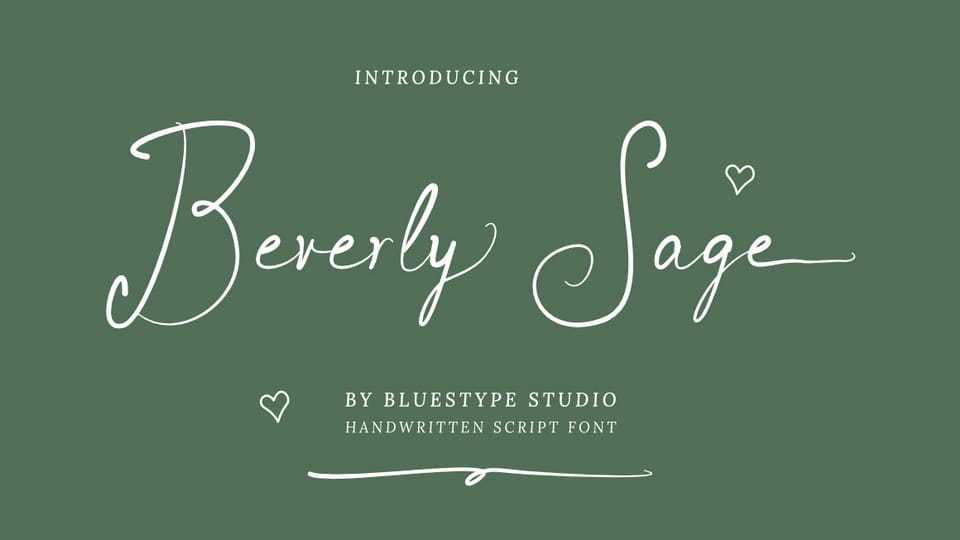
Download Beverly Sage font, a natural, whimsical handwritten typeface crafted from authentic, real-life hand strokes. Each character captures the imperfect beauty of genuine pen-on-paper movement.